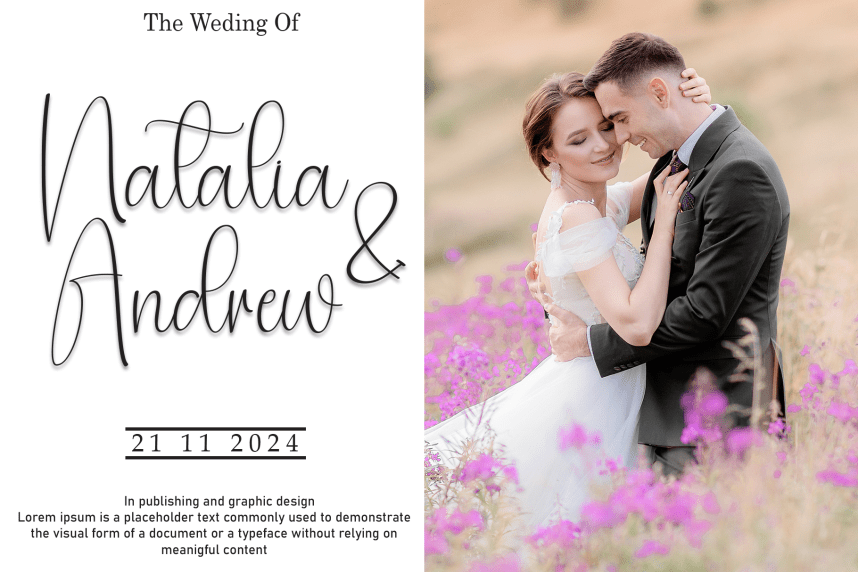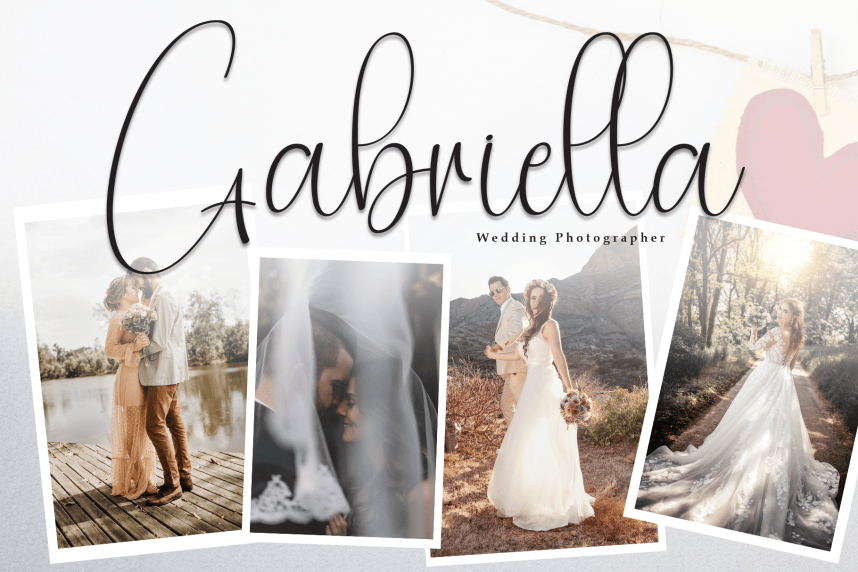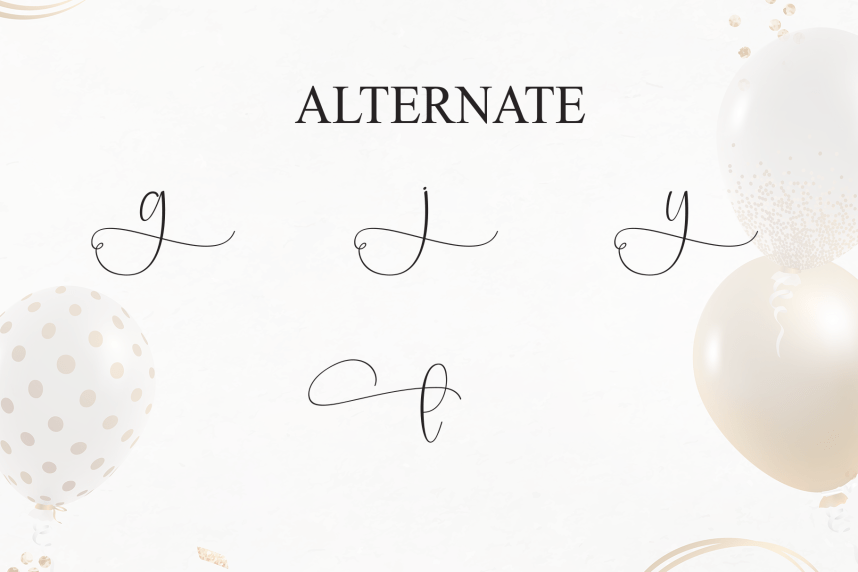
Congrats – Natural Script Handwritten Font, special creative products for you, our products will give you an extraordinary experience. the latest style letters are perfect for wall displays, wedding invitations, social media post logos, advertisements, product packaging, product designs, labels, photography, watermarks, invitations, stationery, and any project that requires taste handwriting.